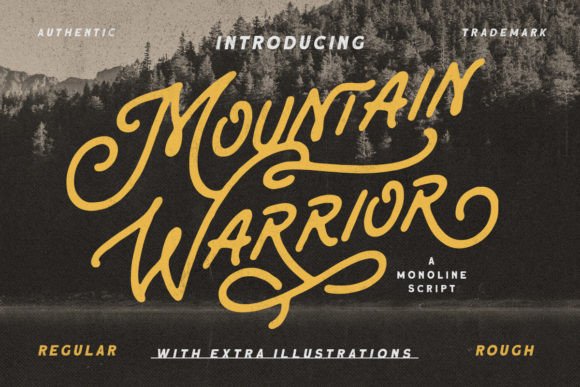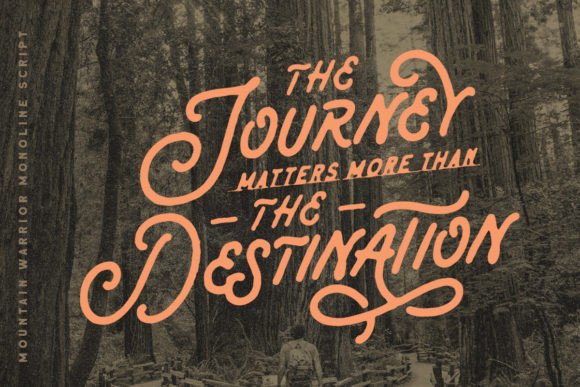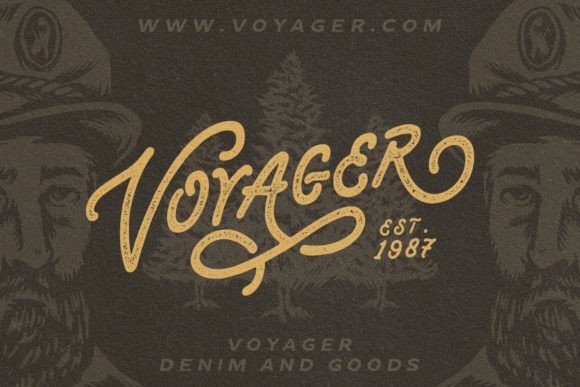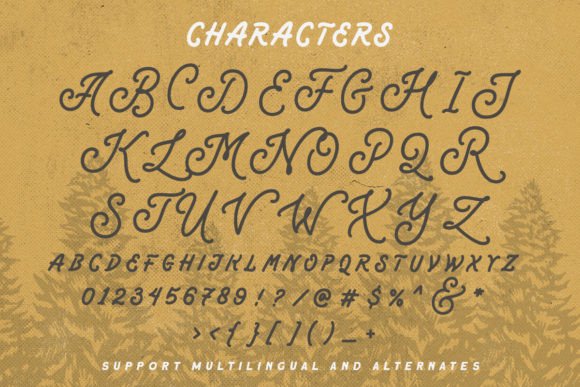
Mountain Warrior is a monoline script with a retro look and feel. It will add a luxurious and nostalgic accent to any design project that you wish to create! This font is PUA encoded which means you can access all of the amazing glyphs and ligatures with ease!
Mountain Warrior Font